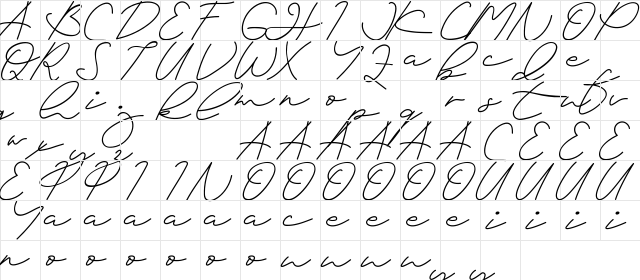
Dreamy Melodies Demo Regular
| Foundry | Edric Studio |
| Designer | Widiyanti & Suci Anita |
Design Context for Dreamy Melodies Demo Typeface
Dreamy Melodies Demo is a composed and adaptable typeface that performs quietly and consistently across a wide range of design contexts.